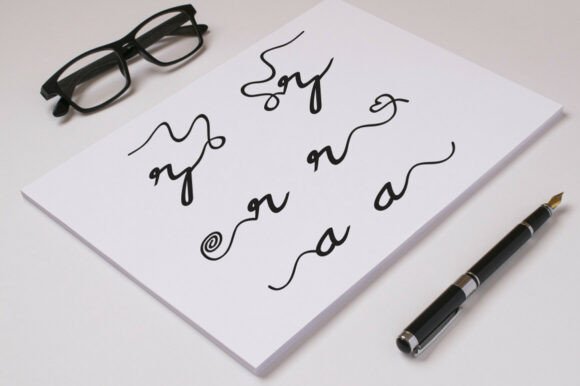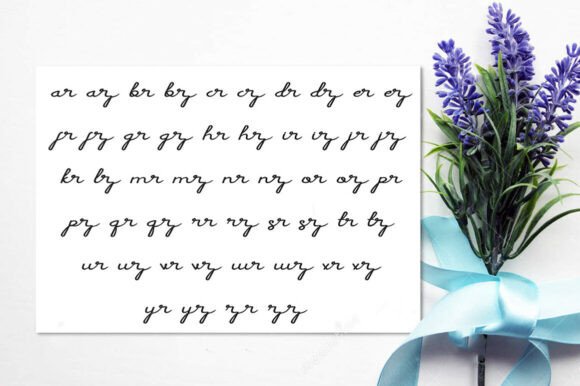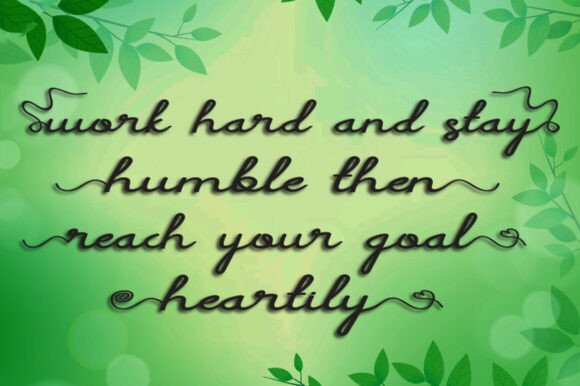
Introducing Ellisa Font: A Modern and Unique Calligraphy Script
Are you looking for a font that can add a touch of elegance and sophistication to your designs? Look no further than Ellisa Font, a beautifully crafted script calligraphy font that is sure to impress. Designed by handwriting, Ellisa Font boasts modern and unique forms of calligraphy, with a natural writing style that is sure to capture the attention of your audience.
The Features of Ellisa Font
Ellisa Font is more than just a beautiful font – it’s also packed with features that make it incredibly versatile and easy to use. Some of the key features of Ellisa Font include:
- Standard Ligatures: Ellisa Font includes standard ligatures, which allow you to create smooth and flowing connections between letters.
- Stylistic Alternates: With stylistic alternates, you can add an extra layer of creativity to your designs, switching between different letterforms to create a unique look.
- Contextual Alternates: Contextual alternates allow you to create a more natural, handwritten look by automatically switching between different letterforms based on the context.
- Stylistic Sets: Ellisa Font also includes stylistic sets, which allow you to easily switch between different font styles and create a cohesive look.
- Swash: Add a touch of elegance to your designs with swash, a decorative element that can be used to add flair to your typography.
With Ellisa Font, the design possibilities are endless. This versatile font can be used for a wide range of projects, including:
- Headings and Titles: Add a touch of elegance to your headings and titles with Ellisa Font.
- Logos and Branding: Create a unique and memorable logo with Ellisa Font.
- Wedding Invitations: Make your wedding invitations truly special with Ellisa Font.
- T-Shirts and Merchandise: Add a touch of style to your t-shirts and merchandise with Ellisa Font.
- Letterheads and Stationery: Create professional-looking letterheads and stationery with Ellisa Font.
- Signage and Displays: Make your signage and displays stand out with Ellisa Font.
- Labels and Packaging: Add a touch of elegance to your labels and packaging with Ellisa Font.
- News and Editorials: Use Ellisa Font to add a touch of sophistication to your news and editorials.
- Posters and Flyers: Create eye-catching posters and flyers with Ellisa Font.
- Badges and Awards: Create custom badges and awards with Ellisa Font.
With Ellisa Font, you can take your designs to the next level and create truly stunning typography. Whether you’re a designer, craft, or DIY enthusiast, Ellisa Font is the perfect choice for anyone looking to add a touch of elegance and sophistication to their projects.